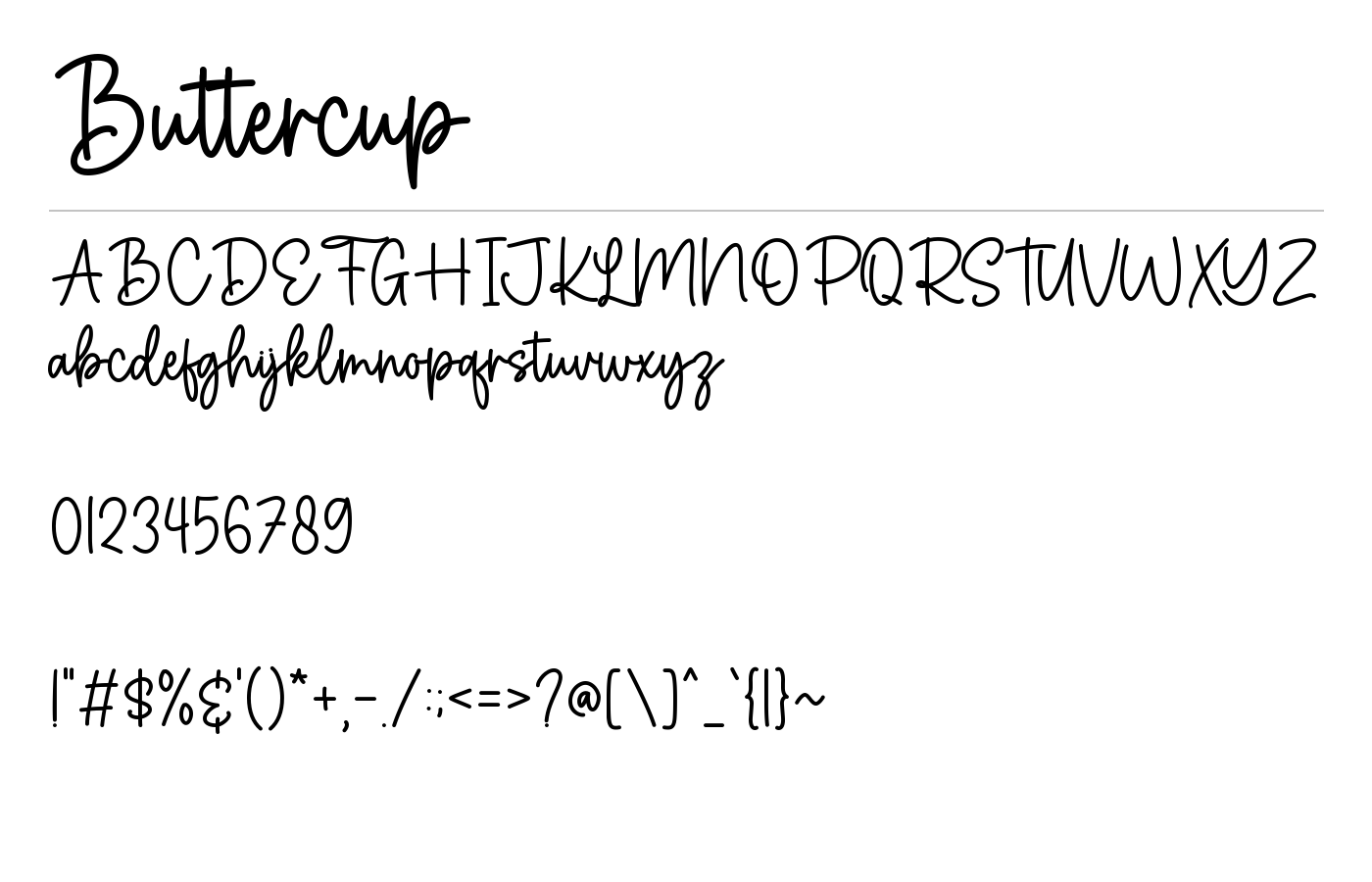
Buttercup is a playful, casual script font that mimics natural handwriting with a smooth, flowing style. It features a light weight, moderate height, and rounded, slightly bouncy letterforms that give it a friendly and approachable vibe, making it ideal for invitations, branding, and creative projects that want a personal touch. Its clear, legible characters also suit informal headlines and social media graphics where warmth and personality are key.
Buttercup Font
About Buttercup Font